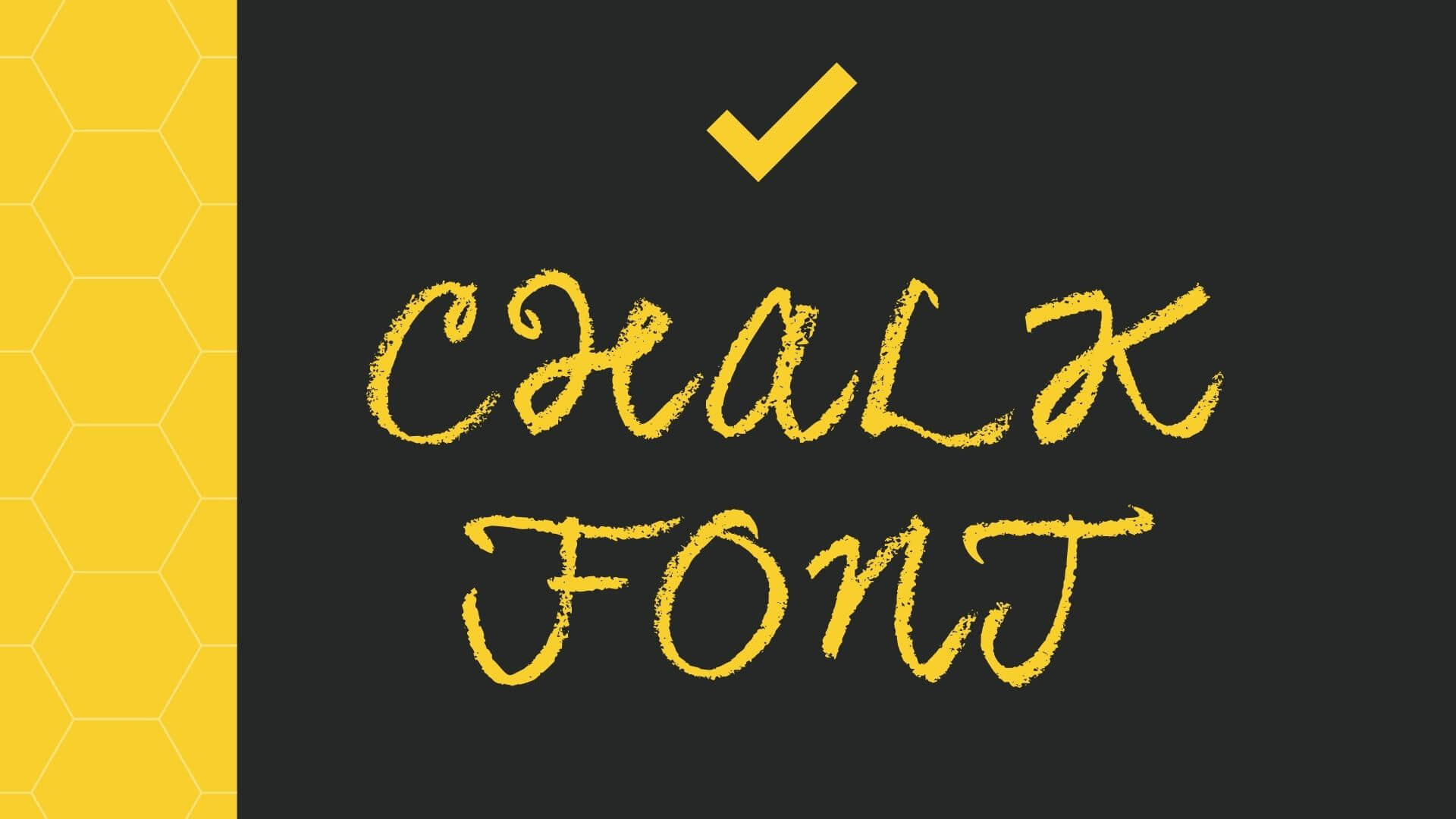
Chalk Font Family is a traditional typeface masterfully crafted by Darrell Flood. Its design closely resembles the appearance of chalkboard writing.
This font can easily be used for website designs as this will add a vintage look to the designs and this can also be used with the combination of unique font and its styles.
| Name | Chalk Font |
| Type | Unique |
| Designer | Darrell Flood |